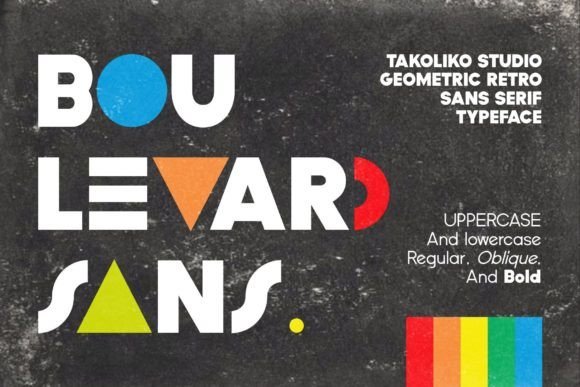
The Perfect Blend of Retro and Modern: Discovering the Boulevard Sans Font
Have you ever been stuck in a design rut, searching for the perfect font to elevate your project? That’s exactly what happened to me last week, and it led me to discover the incredible Boulevard Sans Font. Designed by Takoliko Studio, this geometric sans serif typeface is a game-changer for designers looking to add a touch of retro charm to their work.
What I love about Boulevard Sans Font is its versatility – it comes in regular, bold, and oblique styles, making it perfect for a wide range of design projects. Whether you’re creating attention-grabbing headlines, posters, or social media displays, this font is sure to make a statement. Its bold characteristics make it a valuable addition to any designer’s toolkit, and I’m excited to share more about its features and uses in this article.
Boulevard Sans Font Key Features
- Font Family: Boulevard Sans is a sans-serif font family designed for use in digital media.
- Size and Resolution: Boulevard Sans is optimized for use at medium to large sizes, with a recommended resolution of 300 DPI for print and 72 DPI for digital use.
- Unique Characteristics: The font features a clean, modern design with subtle rounded corners, making it ideal for use in branding, signage, and digital interfaces.
- Language Support: Boulevard Sans supports a wide range of languages, including Latin, Cyrillic, and Greek, making it a versatile choice for global applications.
- Weight and Style Options: The font family includes a range of weights, from Light to Bold, and various styles, including Regular, Italic, and Bold Italic, providing flexibility for designers and typographers.
Boulevard Sans Font Review
Overall, I’m quite impressed with the Boulevard Sans font. Here are some of its strengths:
- ✨ It has a clean and modern aesthetic, making it perfect for contemporary designs.
- ✨ The font is highly legible, even at small sizes, which is a must-have for any font.
- ✨ The font family includes a range of weights, from light to bold, giving designers plenty of options to choose from.
- ✨ The font supports a wide range of languages, making it a great choice for international designs.
- ⚠️ The font may not be suitable for traditional or classic designs, as it has a distinctly modern feel.
- ⚠️ The font’s simplicity may make it feel too sterile or bland for some designs.
- ⚠️ The font’s x-height may be slightly too small for some designers’ tastes.
Overall, I think Boulevard Sans is a solid choice for designers looking for a clean and modern font. While it may not be the best fit for every project, it’s definitely worth considering for contemporary designs that require a sleek and professional look.
Getting the Most Out of Boulevard Sans
To get the most out of Boulevard Sans, try pairing it with a sans-serif font for body text and use it for headings and titles.
Experiment with different font sizes and styles to create visual interest and hierarchy in your design.
Use Boulevard Sans in combination with other design elements, such as images and graphics, to create a cohesive and professional look.
Boulevard Sans is commonly used for:
1. Branding and identity design
2. Editorial and publishing design
3. Digital product design
4. Marketing and advertising design
Alternatives to Boulevard Sans Font
Open Sans is a modern sans-serif font that is highly legible and versatile. It is suitable for body text, headings, and titles. Open Sans is a popular choice among designers due to its clean and neutral design. Compared to Boulevard Sans Font, Open Sans has a more rounded and friendly feel, making it ideal for digital products and interfaces.
Lato is a sans-serif font that is highly legible and elegant. It is suitable for body text, headings, and titles. Lato has a strong geometric feel, making it ideal for corporate and modern designs. Compared to Boulevard Sans Font, Lato has a more geometric and sophisticated feel, making it suitable for high-end designs.